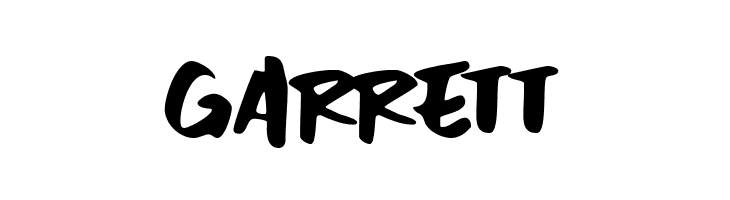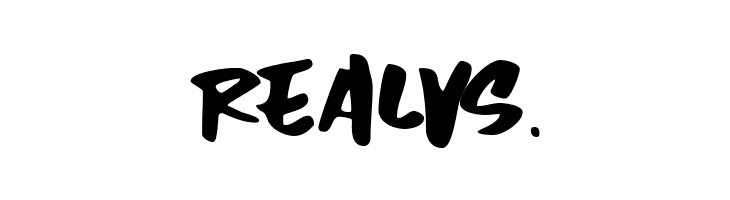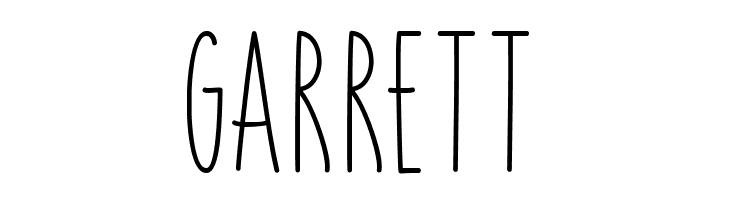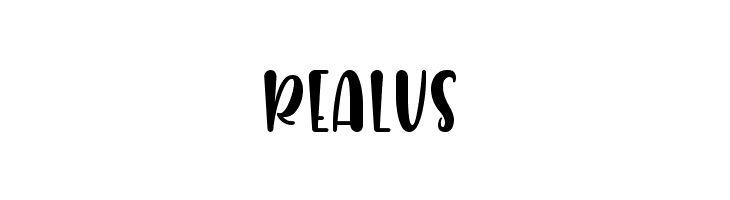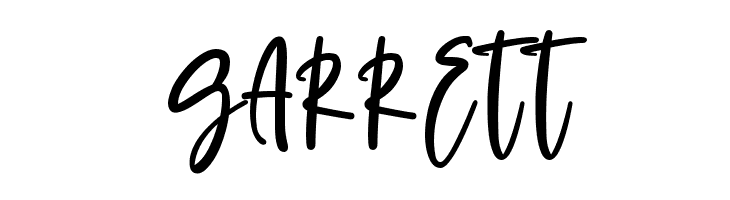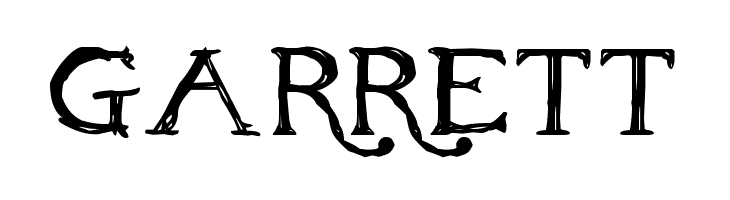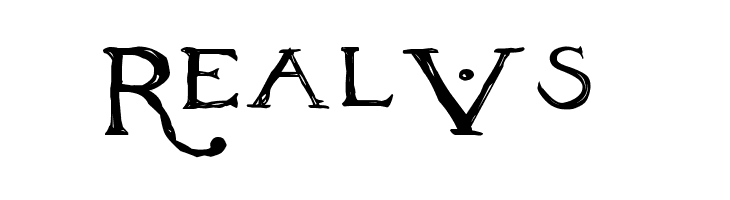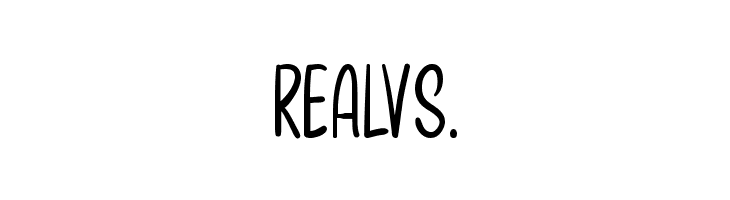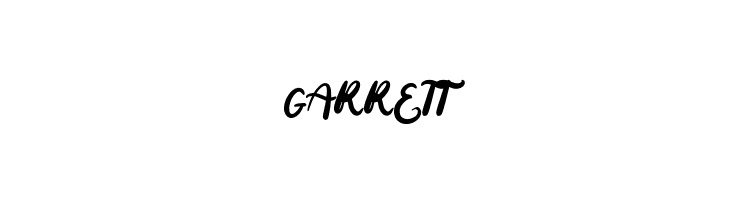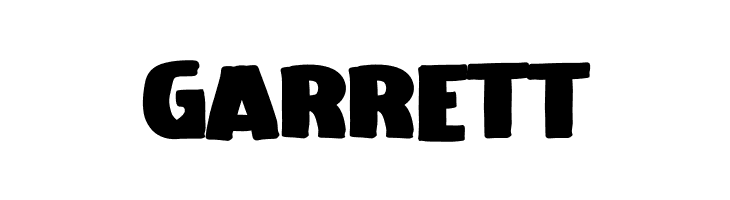
A bold, angular font with a dynamic and aggressive style.
A bold, geometric font with a futuristic and digital aesthetic.
A playful, hand-drawn font with bold, irregular strokes.
A bold, modern font with a strong industrial aesthetic and rounded edges.
A retro collection of bold, geometric shapes and playful motifs inspired by 1960s design.
A bold, geometric font with a retro 1960s pop culture vibe.
A bold, retro font with geometric, multi-line letterforms inspired by 1960s pop culture.
A dot matrix font with a retro, digital display aesthetic.
Retro 1960s-inspired dingbat font with geometric and decorative motifs.
A bold, distressed font with a grunge aesthetic and textured appearance.
A retro striped font with a 1960s vibe, featuring geometric and rhythmic line patterns.
A retro-inspired font with striped detailing and geometric structure.
A bold, hand-drawn font with sharp, angular edges and a graffiti-like style.
A bold, futuristic font with a geometric and tech-inspired design.
A bold, geometric font with an industrial, futuristic style.
A playful, hand-drawn font with tall, narrow characters and a whimsical style.
A pixelated, monospaced font with a retro digital aesthetic.
A pixelated, retro-style font with a digital, blocky appearance.
A pixelated, monospaced typeface with a retro digital aesthetic.
A sleek, modern font with geometric and minimalist design.
A futuristic, geometric font with a sleek and modern design.
A bold, oblique font with a modern, futuristic style.
A playful, wavy font with a unique and quirky style.
A sleek, futuristic oblique font with geometric precision and clean lines.
A playful and quirky font with rotated, irregular characters.